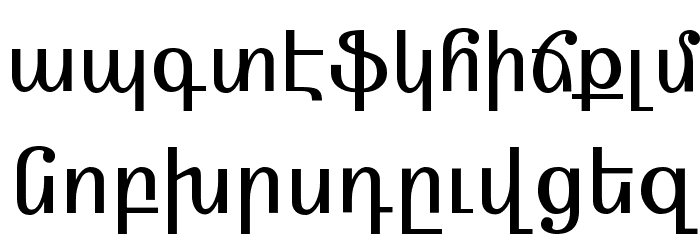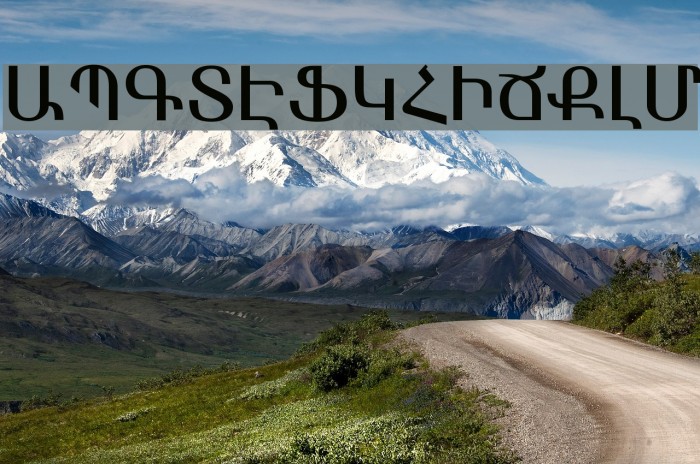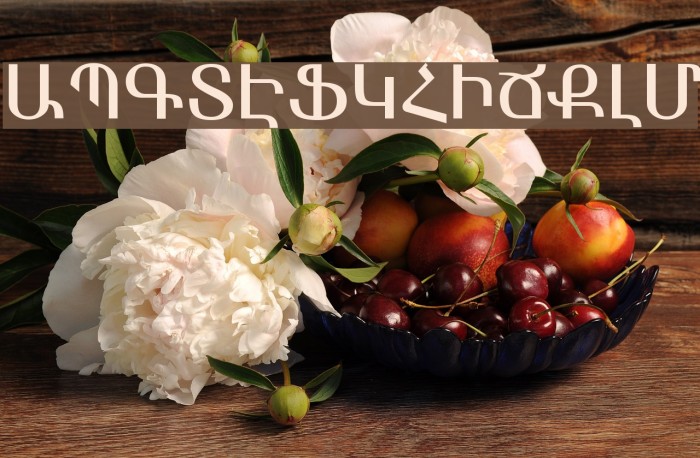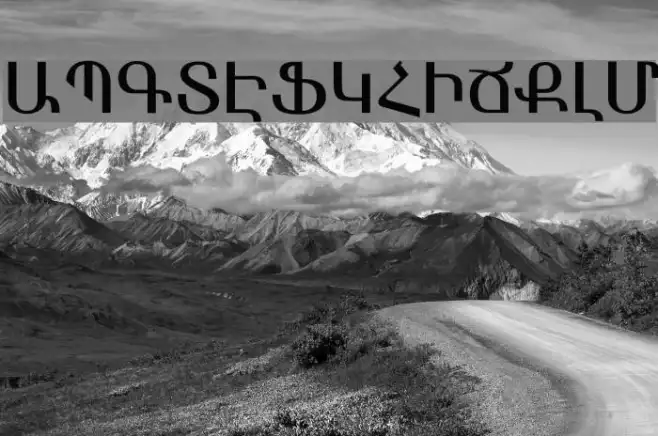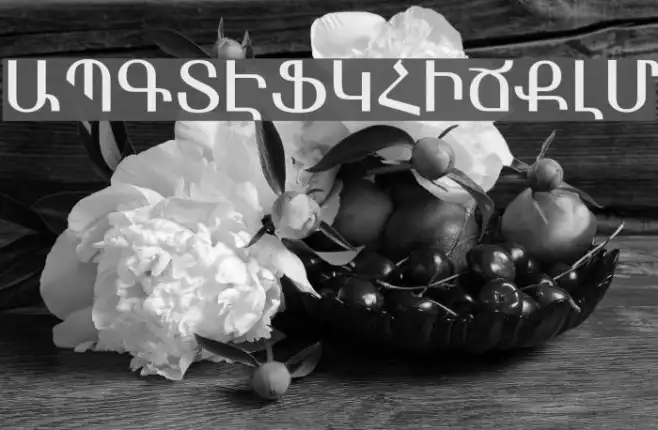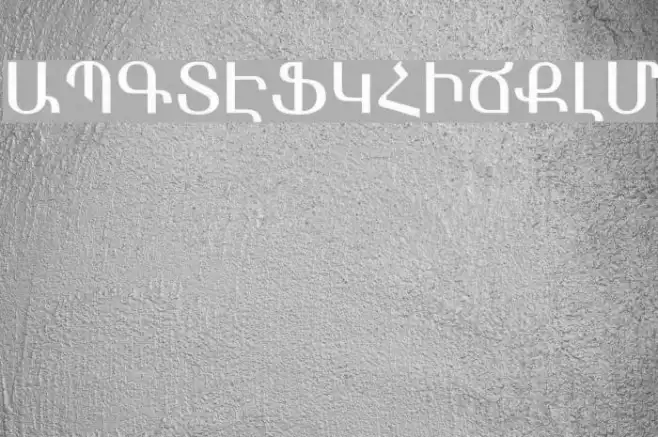
Arasan Font
This font features a distinct and modern design with clean lines and a balanced structure. The characters are well-defined, showcasing a blend of geometric and organic shapes. The uppercase letters have a strong presence, while the lowercase letters maintain a harmonious flow. The numerals are clear and easily distinguishable, making them suitable for various applications. Special characters are included, adding versatility to the font's usage. The overall style is contemporary, making it ideal for digital and print media.
A modern font with clean lines and a balanced structure, suitable for various applications.